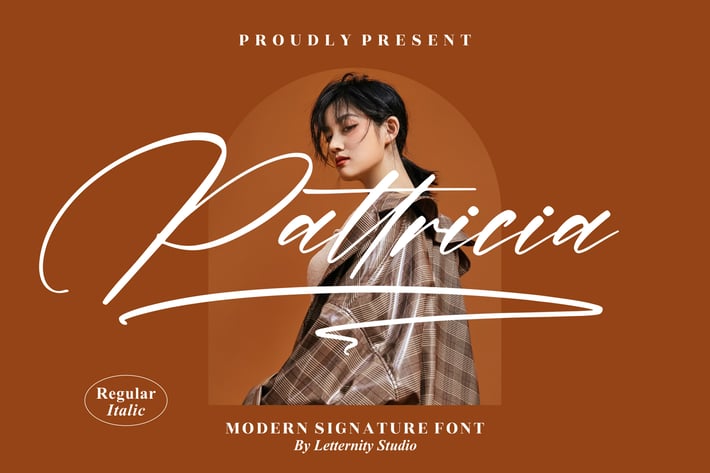
Patricia Modern Signature Font
Patricia is a modern signature font that exudes elegance and personal charm. With its smooth strokes and handwritten touch, this typeface is perfect for creating stylish, authentic, and professional designs. Its versatility makes it an ideal choice for both digital and print projects that require a sophisticated yet personal feel.
+ Modern handwritten signature style
+ Smooth flowing letterforms for natural elegance
+ Includes Regular & Italic variations
+ Strong readability with stylish flair
+ Works perfectly across digital and print formats
+ Branding & logo design
+ Fashion & lifestyle projects
+ Wedding invitations & stationery
+ Editorial designs
+ Social media graphics
+ Personal signatures & portfolios
Add a touch of elegance and authenticity to your designs with Patricia — the perfect modern signature font.